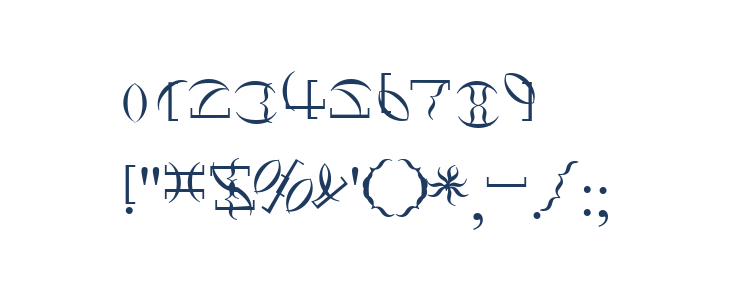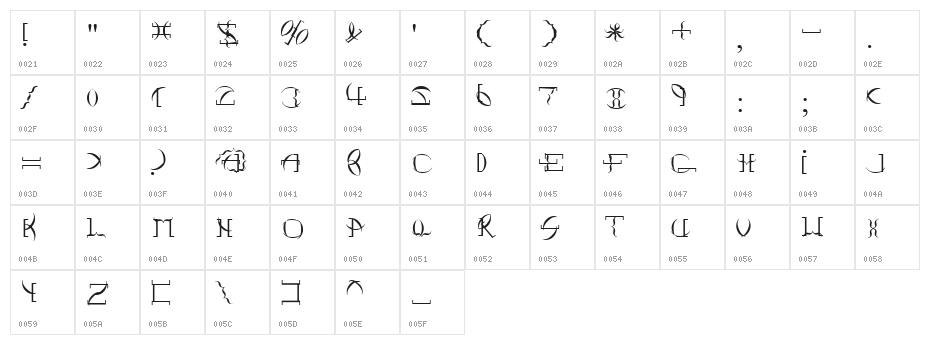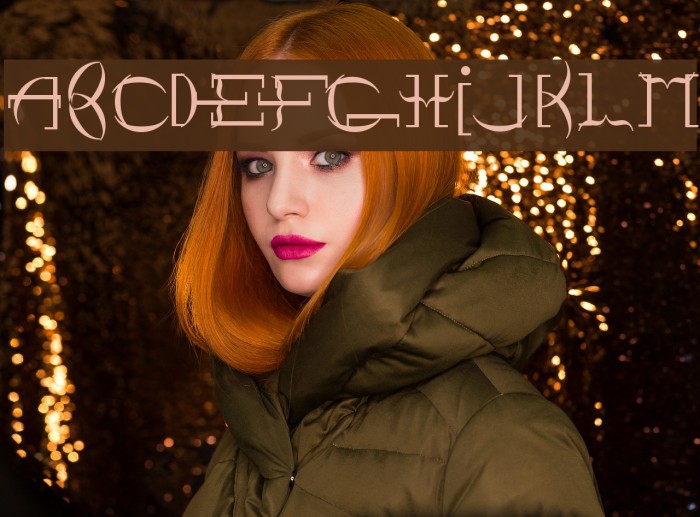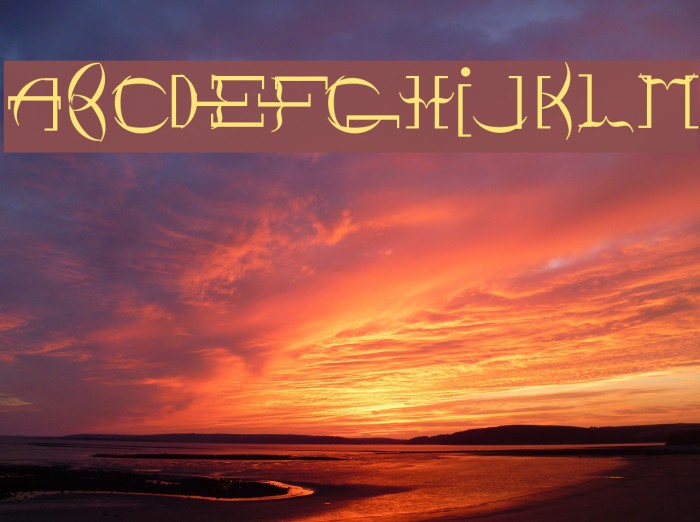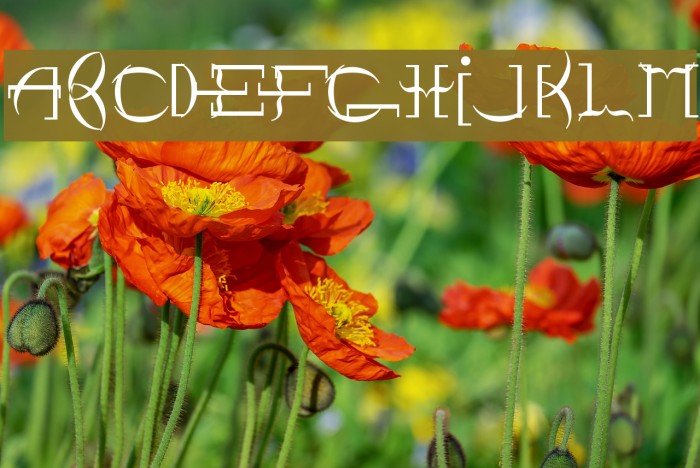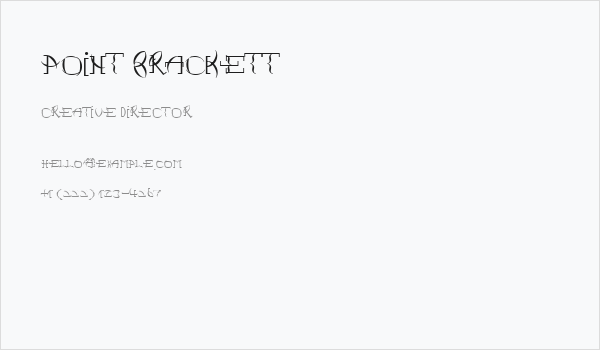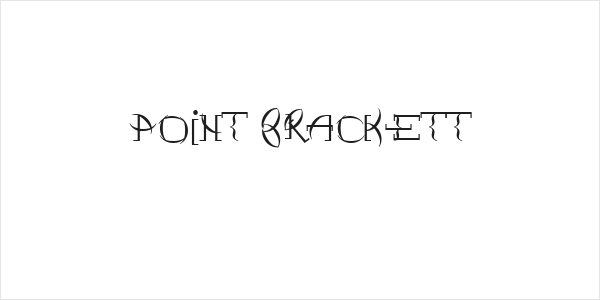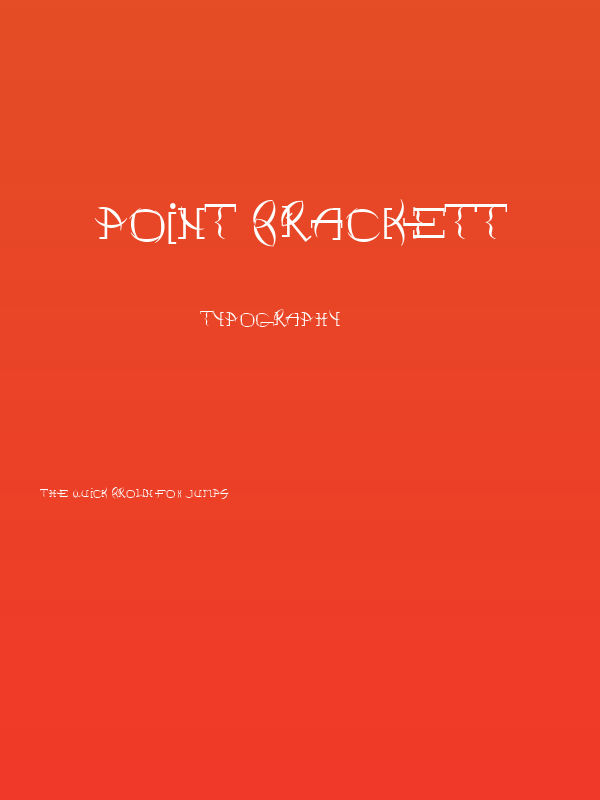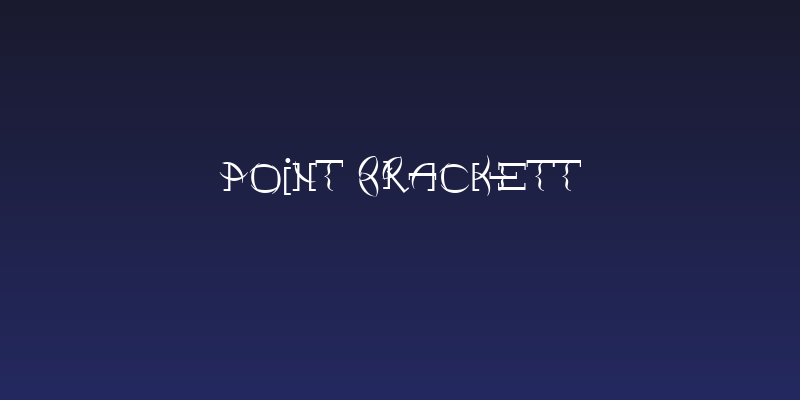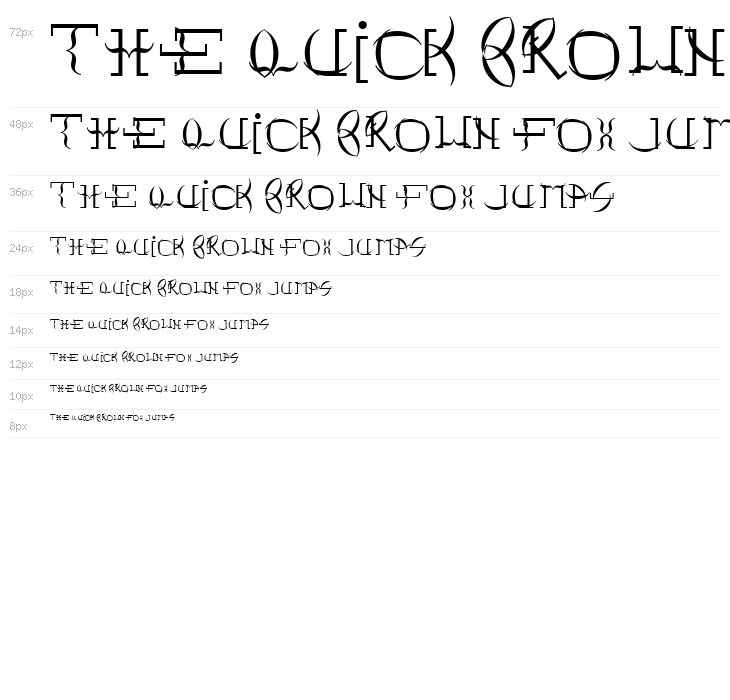
Point Brackett Font
Point Brackett Description
This font features a unique and intricate design with a blend of geometric and organic elements. Each character is crafted with a combination of sharp angles and flowing curves, creating a striking contrast. The uppercase and lowercase letters maintain a consistent style, with embellishments that resemble brackets and points, adding a decorative flair. The numerals and special characters follow the same design principles, ensuring a cohesive look across all glyphs. This font's distinct style makes it suitable for creative and artistic projects where a bold statement is desired.
| Proposed Projects | Ideal for artistic posters, album covers, branding for creative industries, and unique logo designs. |